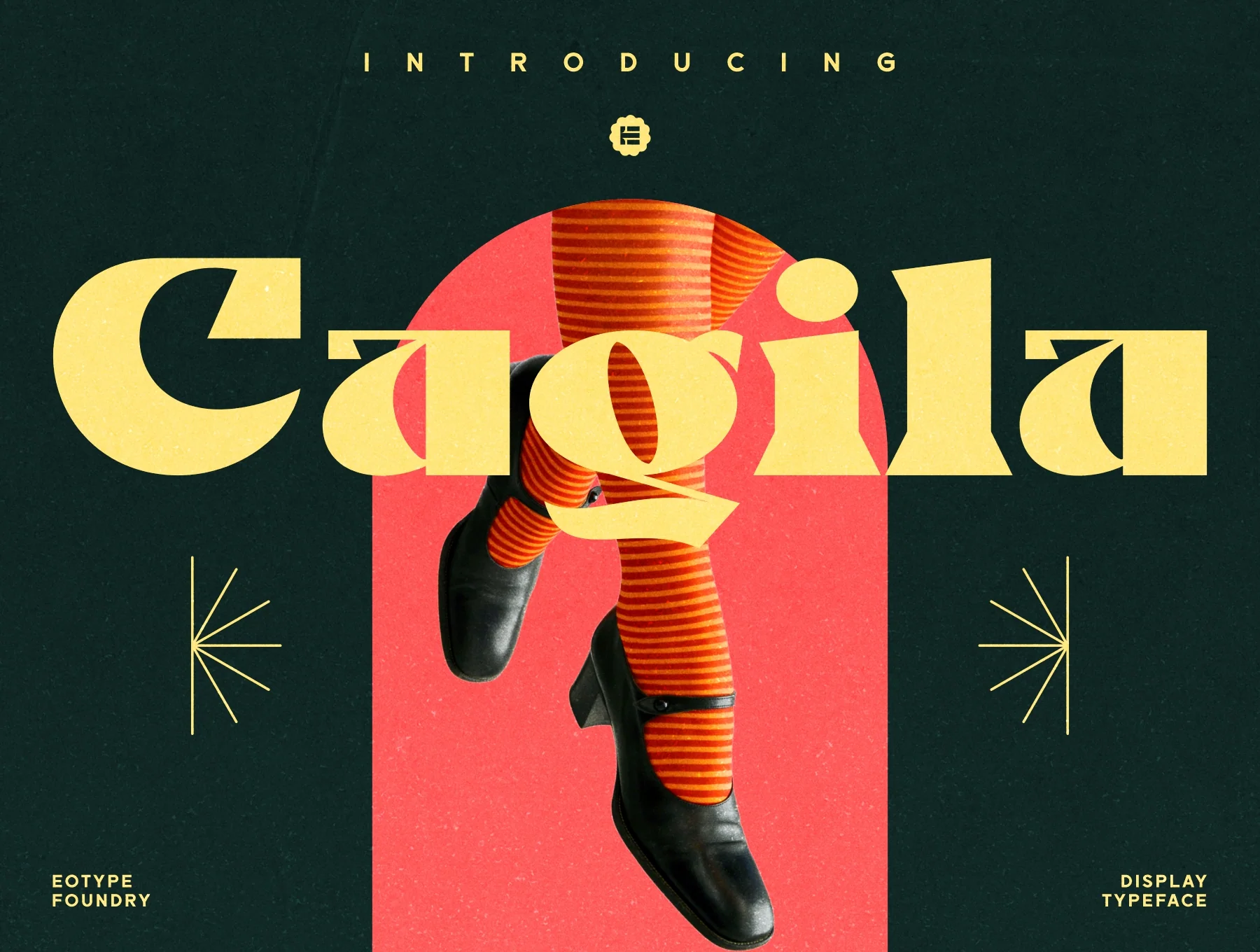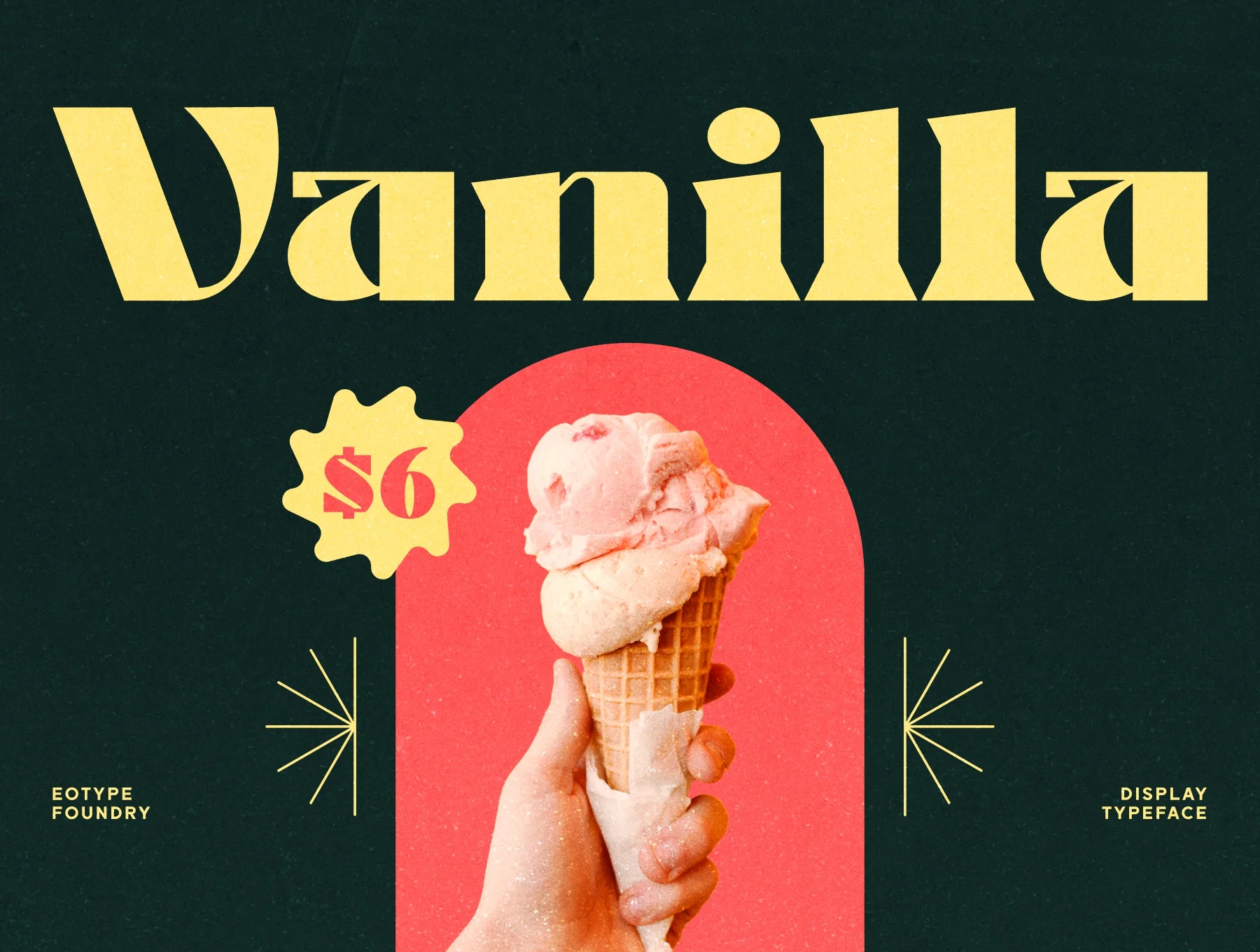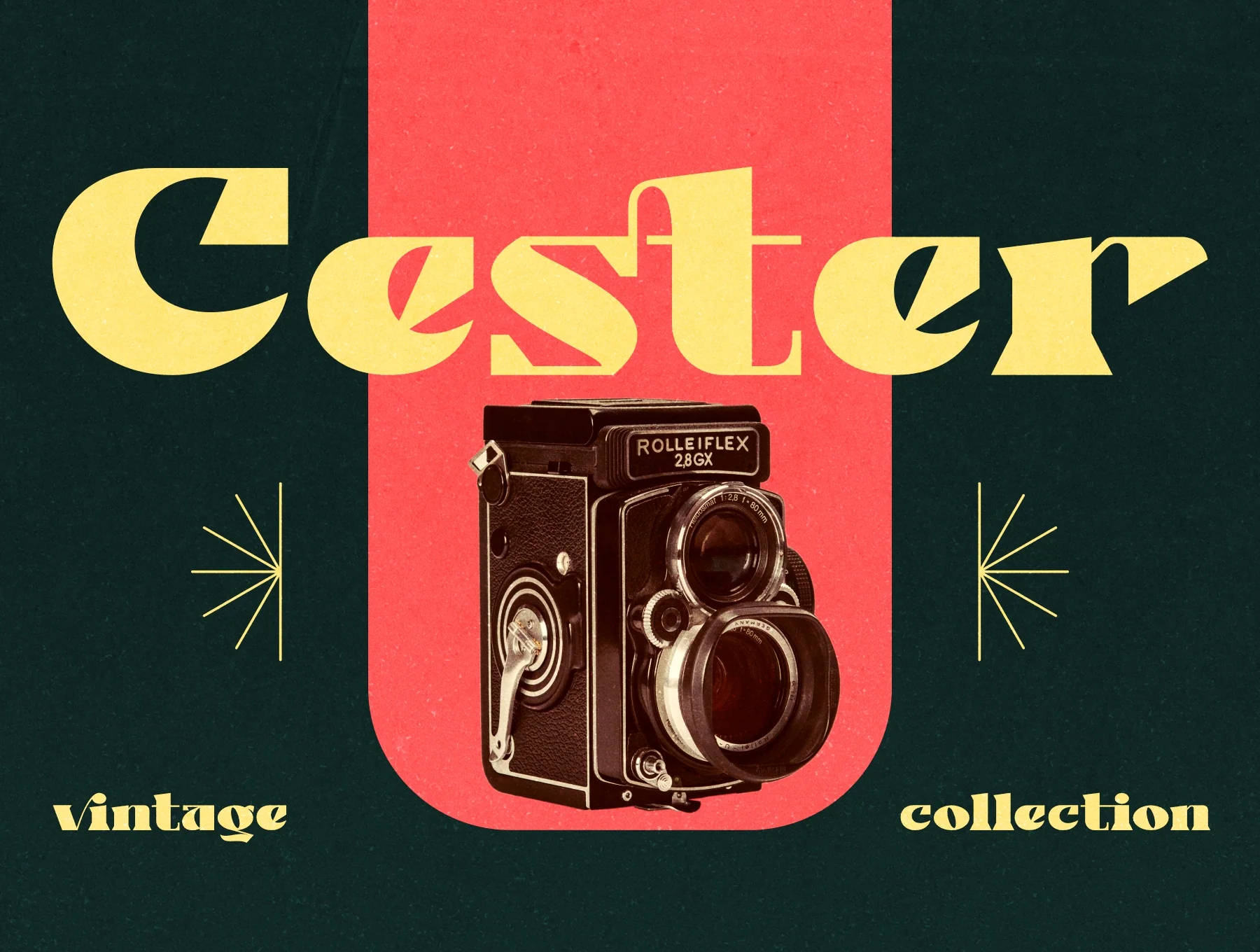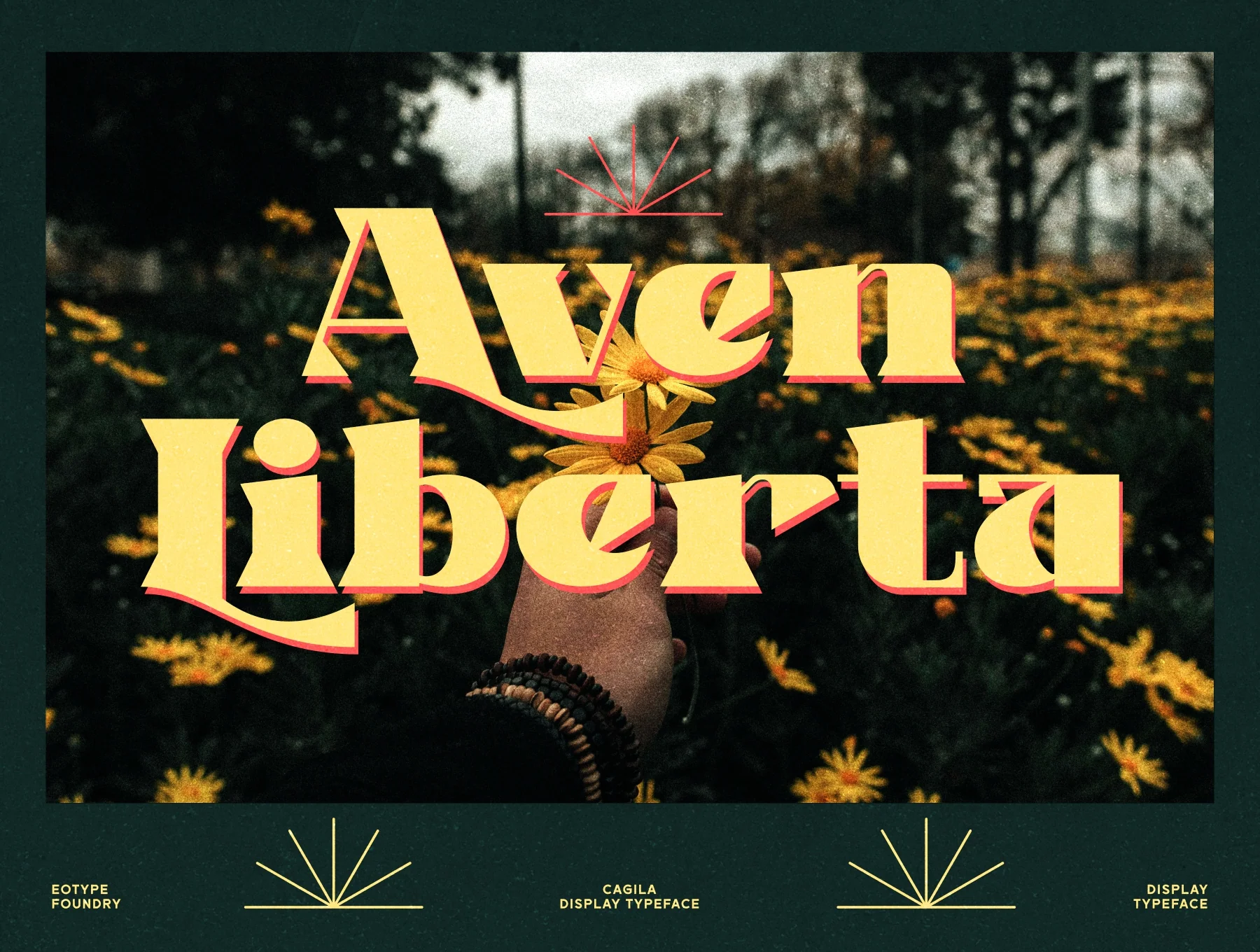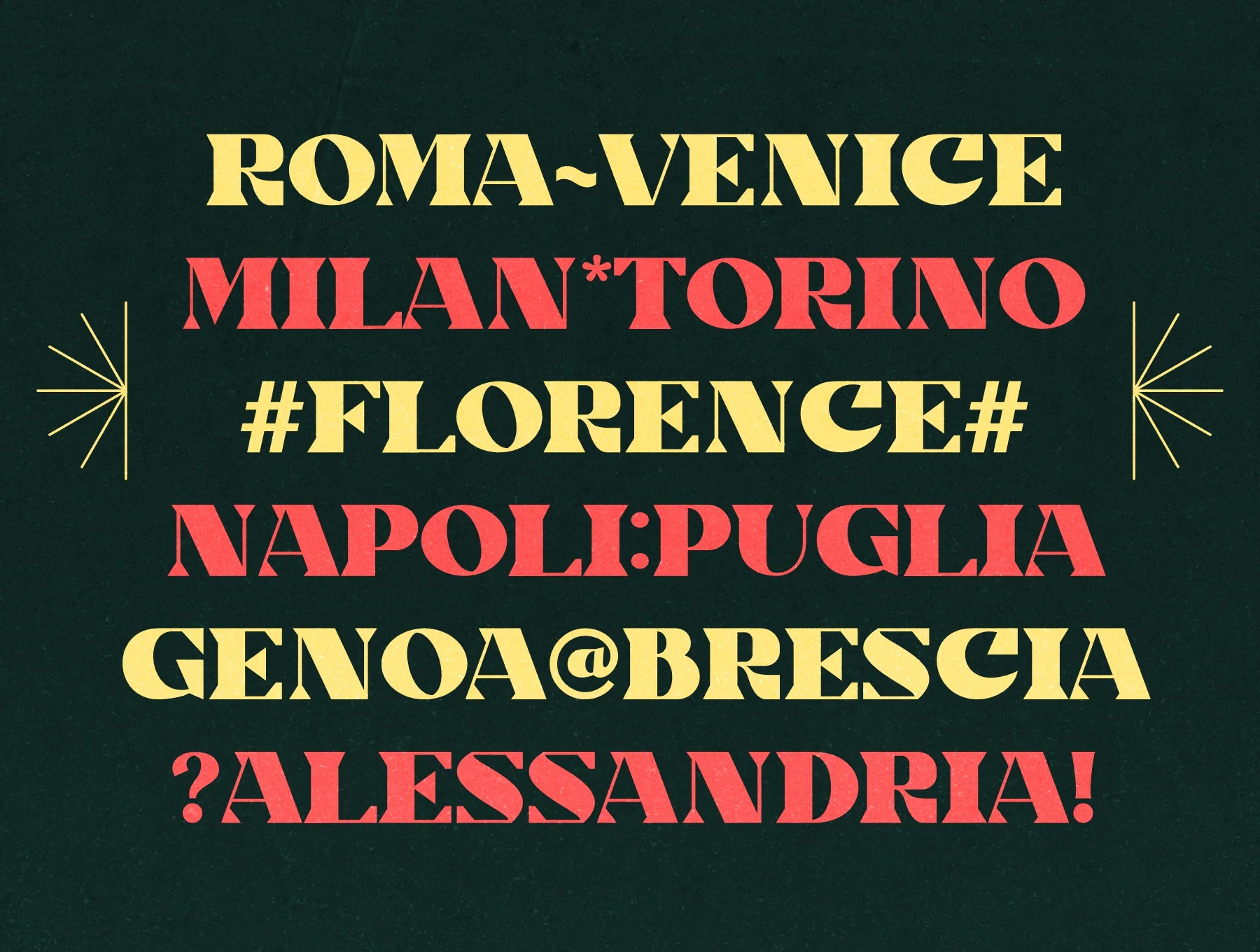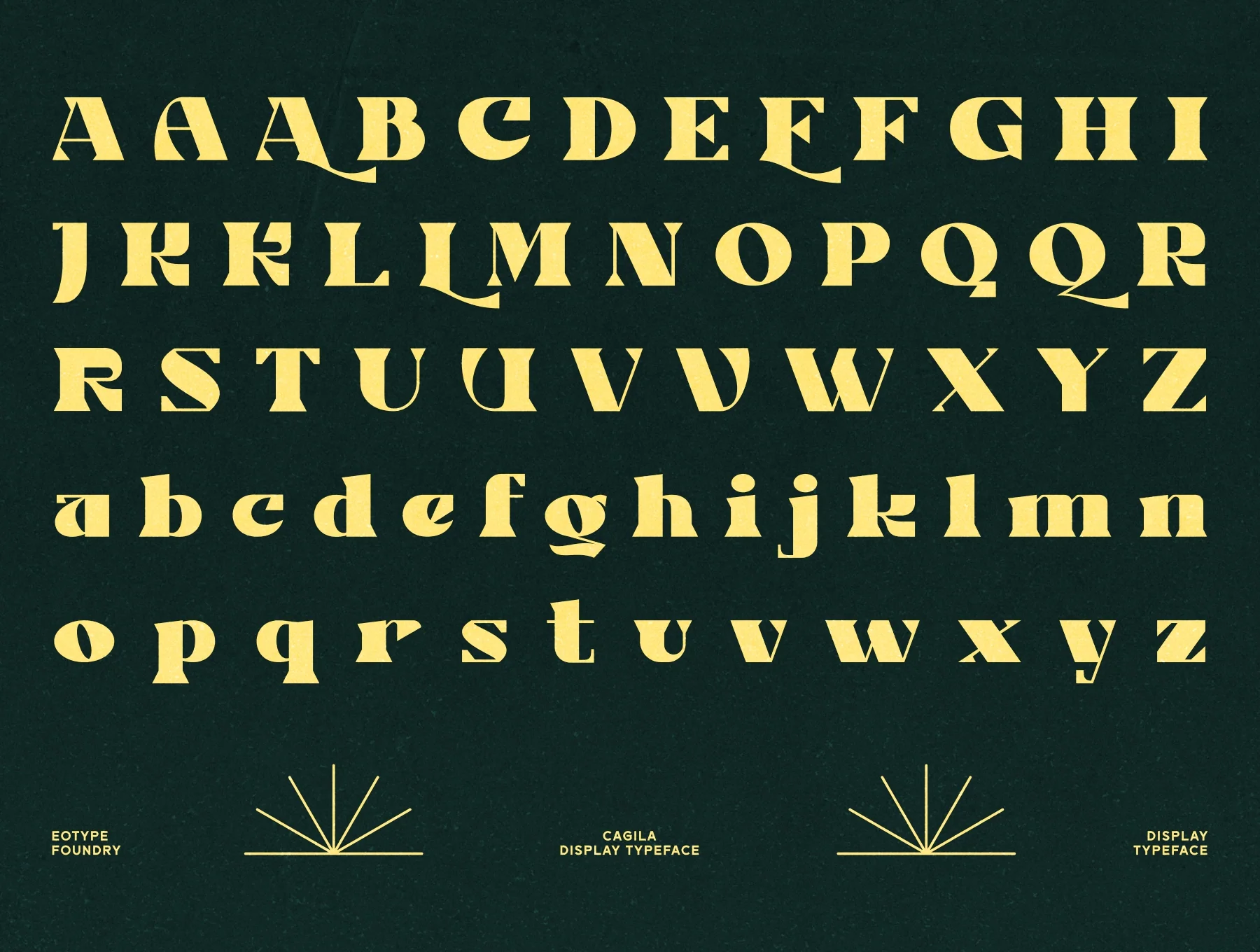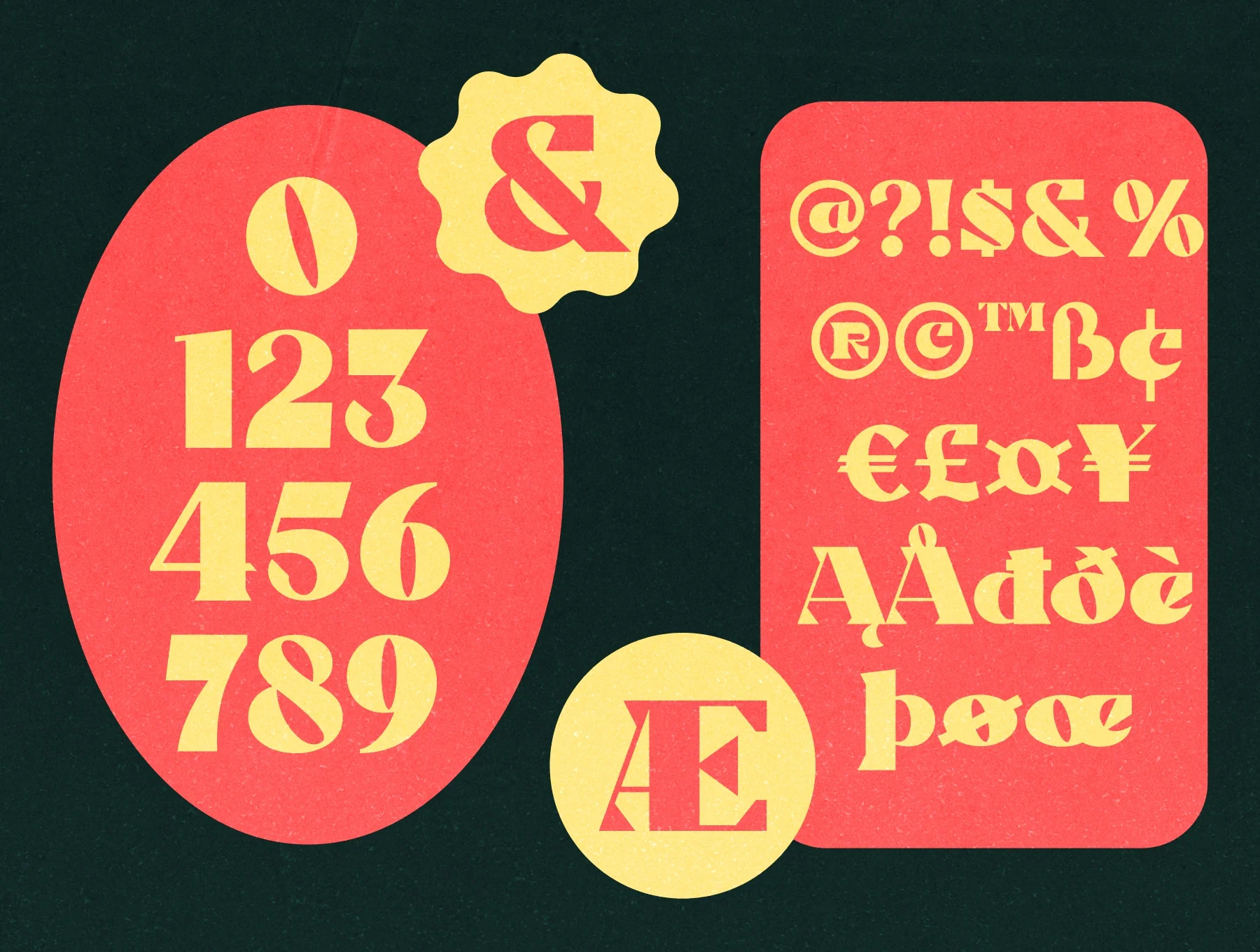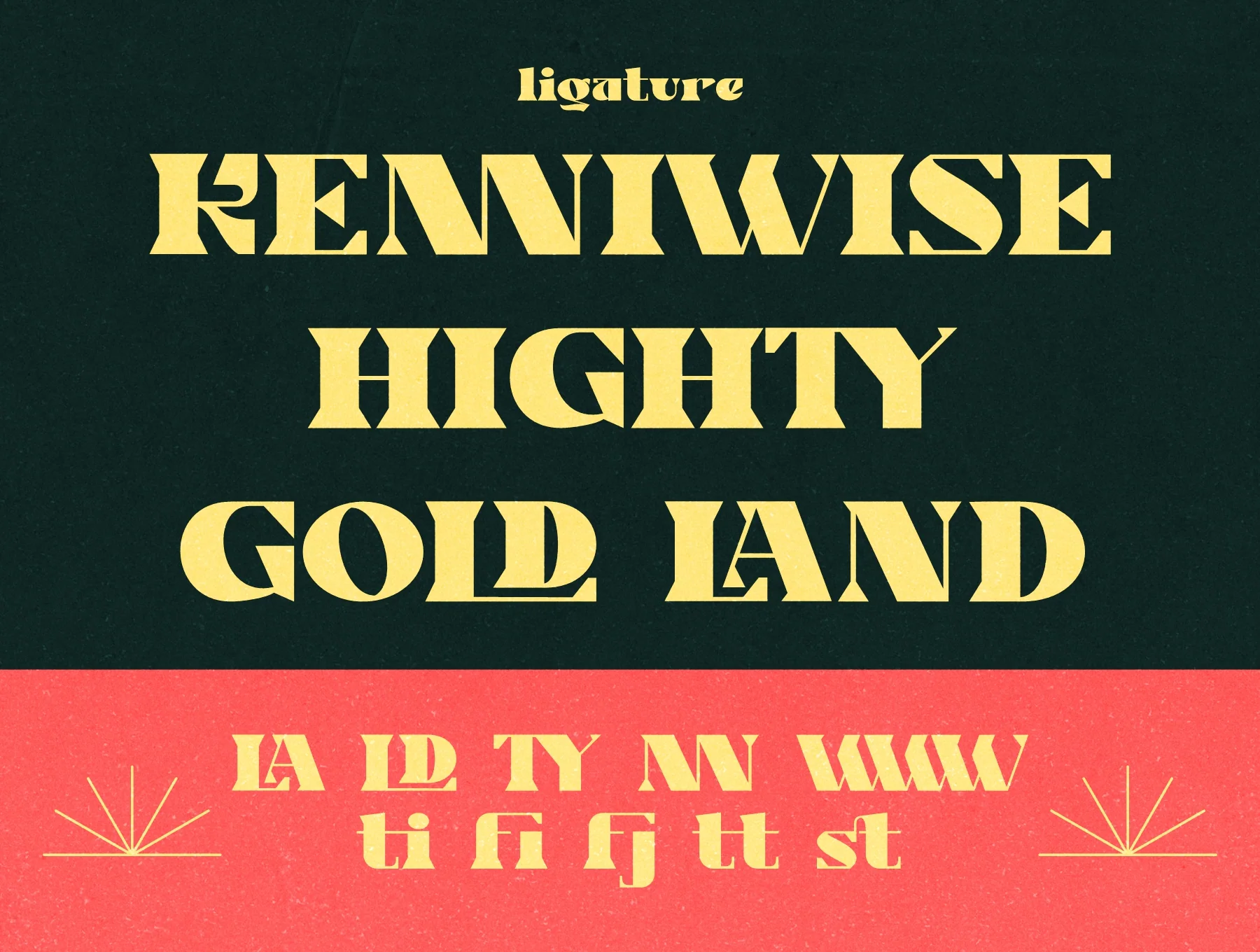
Cagila - Display Typeface
Cagila refined serif typeface
Default Glyph
Standard Style
Numbers & Marks
Decorative Alternates & Ligatures
Cagila is a refined vintage serif by Eotype Foundry, offering a distinctive look with stylistic alternates, ligatures, and multilingual support. Perfect for striking logotypes, sophisticated magazine layouts, and bold graphic projects with an elegant touch.